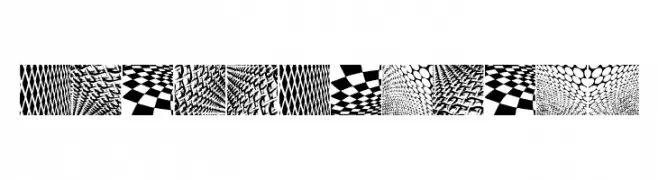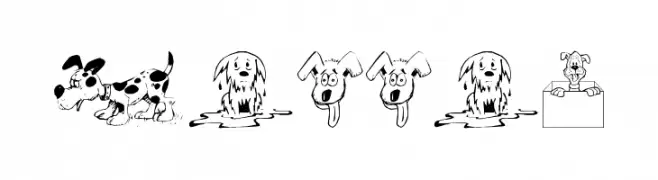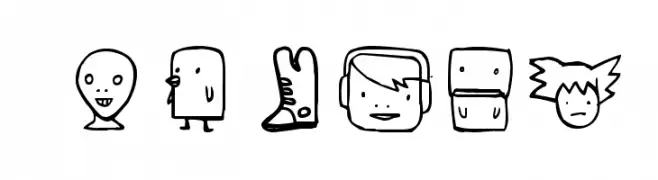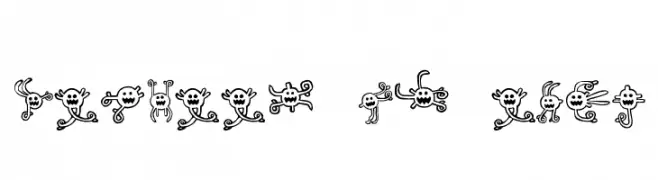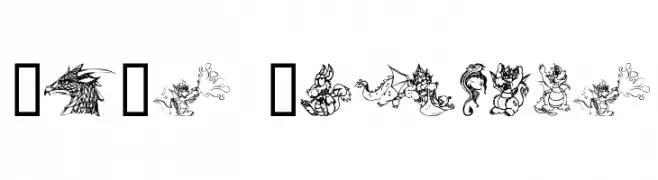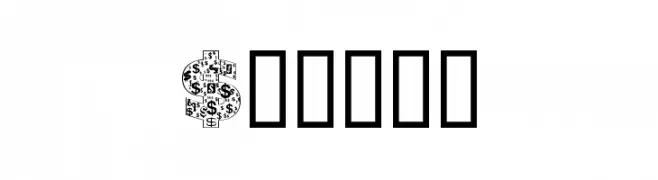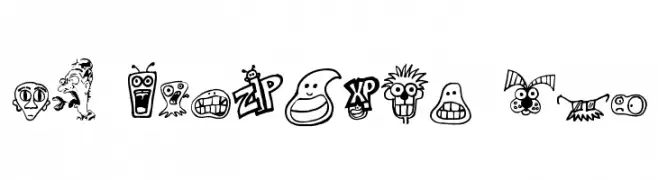
Whimsical weather-themed dingbat illustrations.
( Fonts by bob istheowl http://luc.devroye.org/bobistheowl.html )
Abstract, optical illusion-inspired decorative font with warped geometric patterns.
Cartoon dog illustrations replace letters and numbers in a decorative, playful style.
( Fonts by Rodrigo German - RASDESIGN )
Hand-drawn cartoon icon font with playful, irregular lines.
Illustrative font featuring drama and theater motifs.
An intricate, Jugendstil-inspired decorative font with elaborate patterns and motifs.
( Fonts by www.houseoflime.com )
Cartoon dragon illustrations replace standard characters for a decorative effect.
A decorative font with African-inspired symbols and illustrations.
A decorative font featuring playful money-themed illustrations.
( Fonts by Anita Wainer - www.jamondelmar.com )
A Beatles-themed decorative dingbat font with illustrations and icons.
A decorative, monster-themed illustrated font with playful, cartoonish characters.